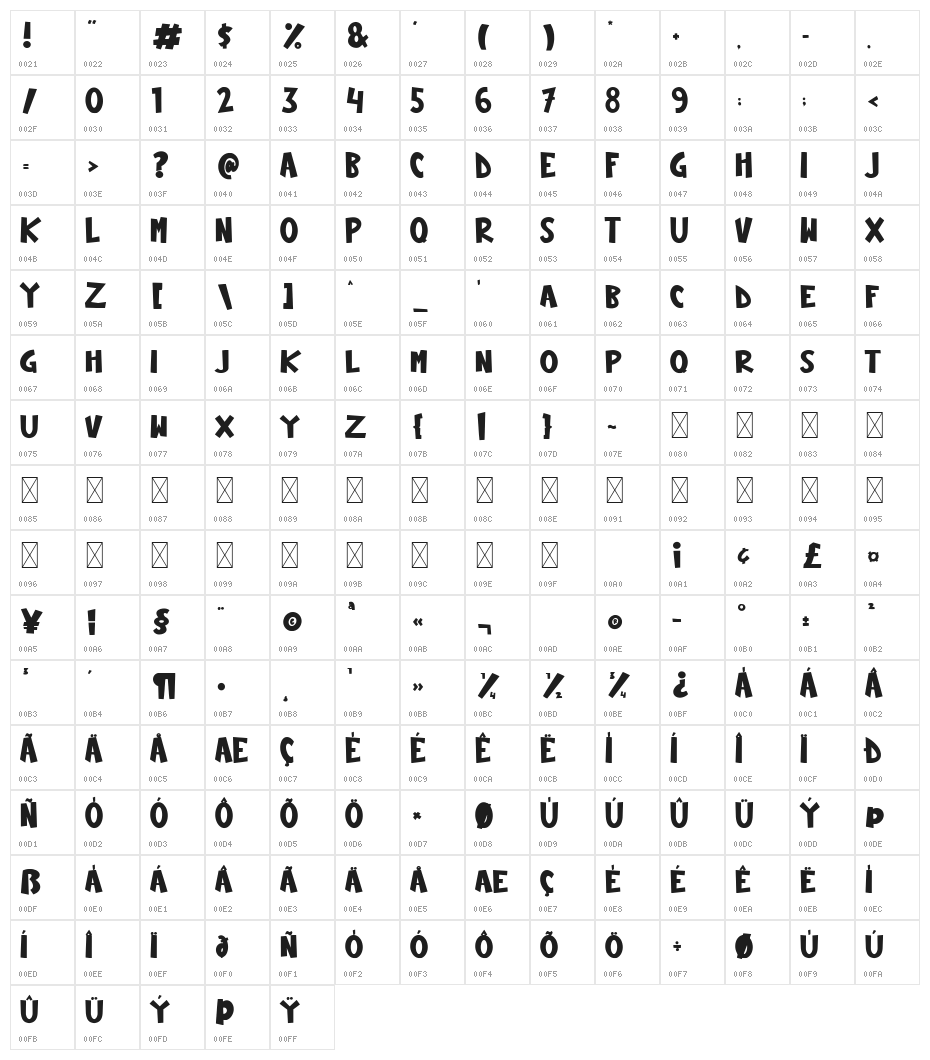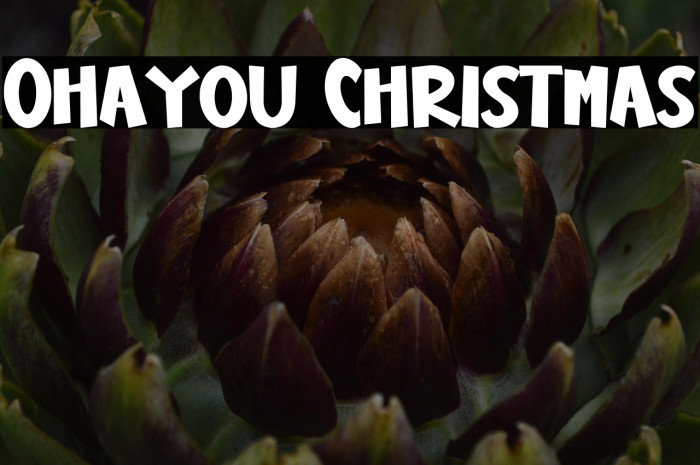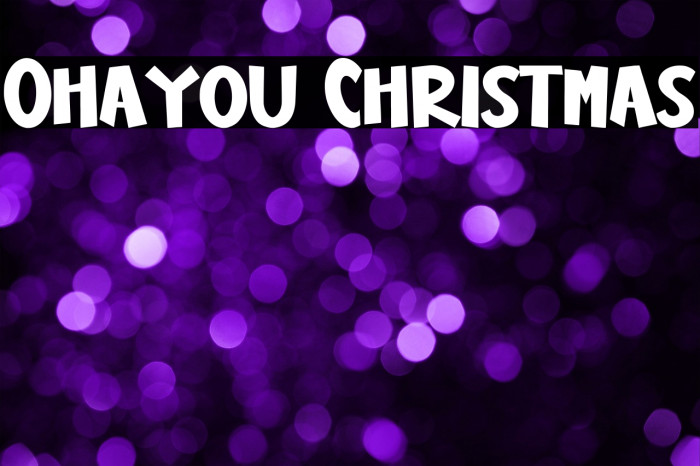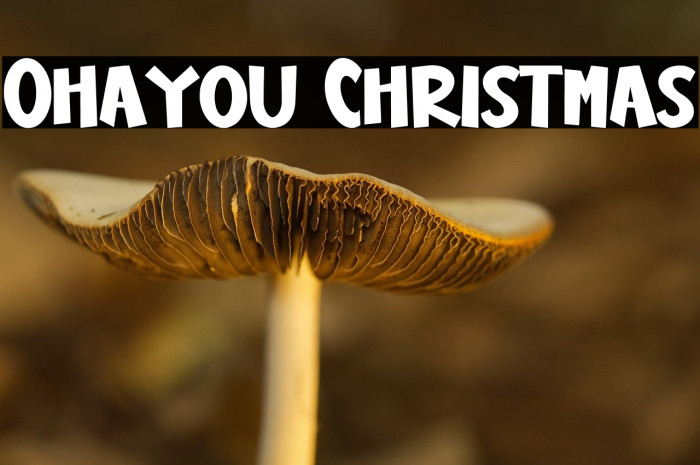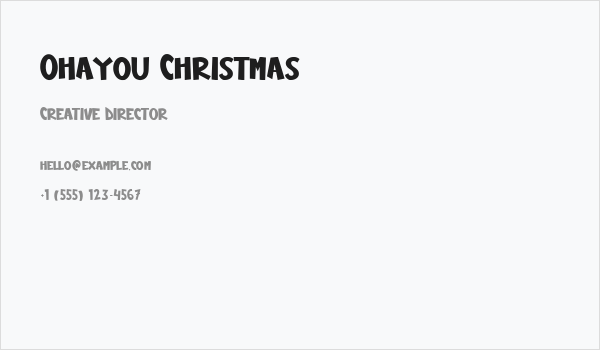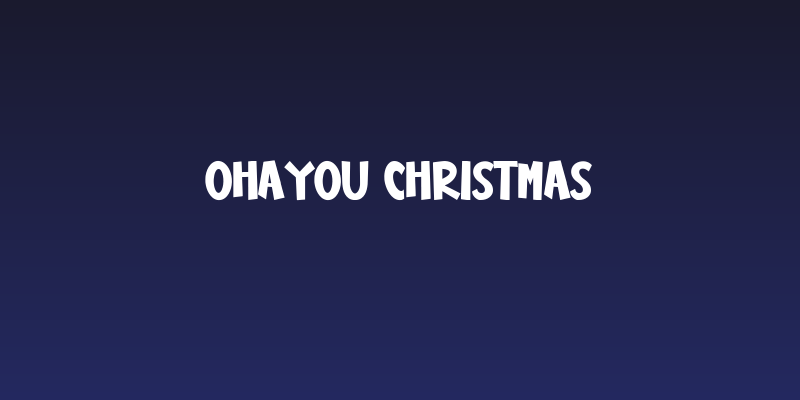
Ohayou Christmas Font
Ohayou Christmas Description
This playful and bold font features a distinctive, whimsical style with exaggerated curves and a slightly uneven baseline, giving it a hand-drawn appearance. The characters are thick and robust, with a lively and energetic feel that captures attention. The uppercase and lowercase letters maintain a consistent style, with rounded edges and a friendly demeanor. The numbers and special characters follow the same playful design, making the font versatile for various creative projects. Its boldness ensures readability while adding a touch of fun and personality to any text.
| Use Case | Headlines, Posters, Branding |
| Proposed Projects | Ideal for children's books, holiday cards, playful branding, and festive posters. |